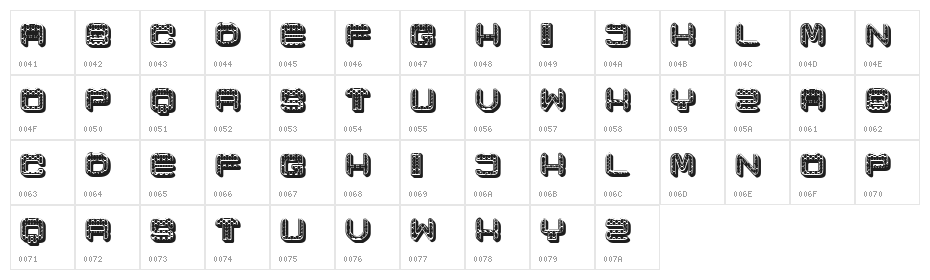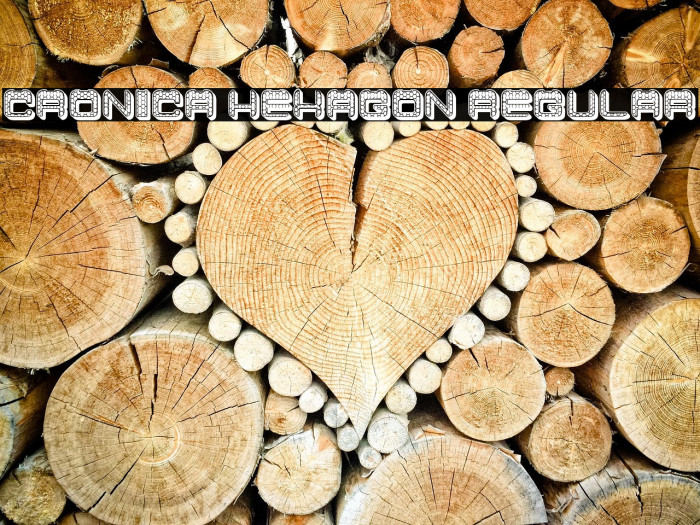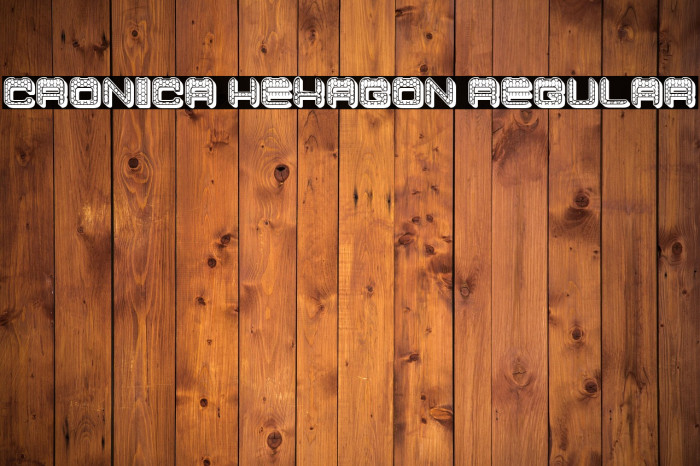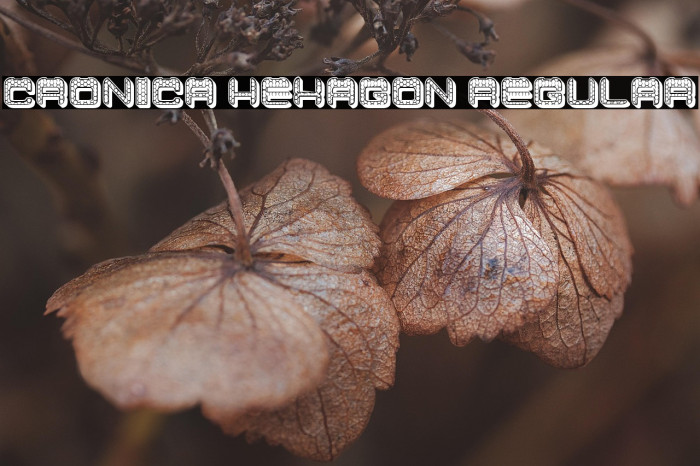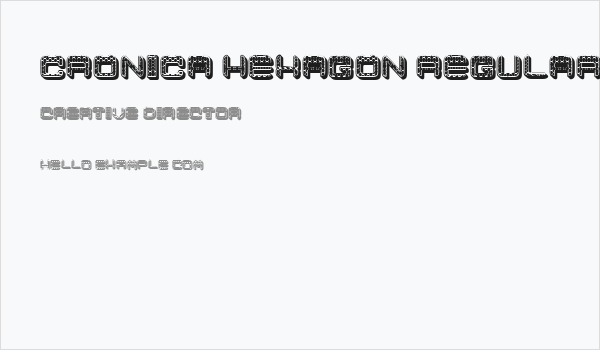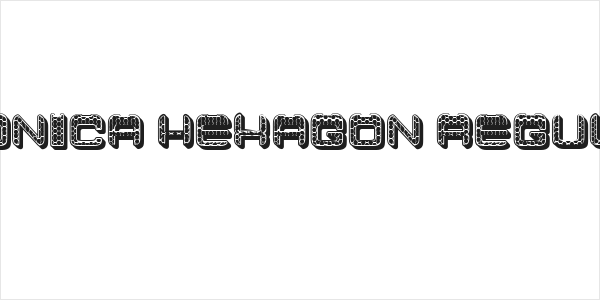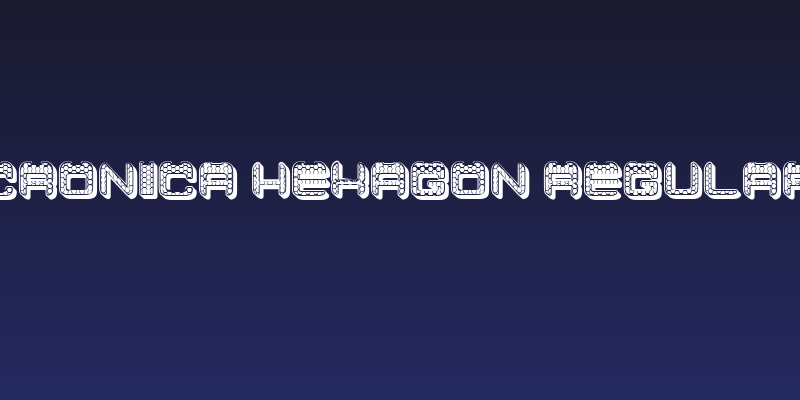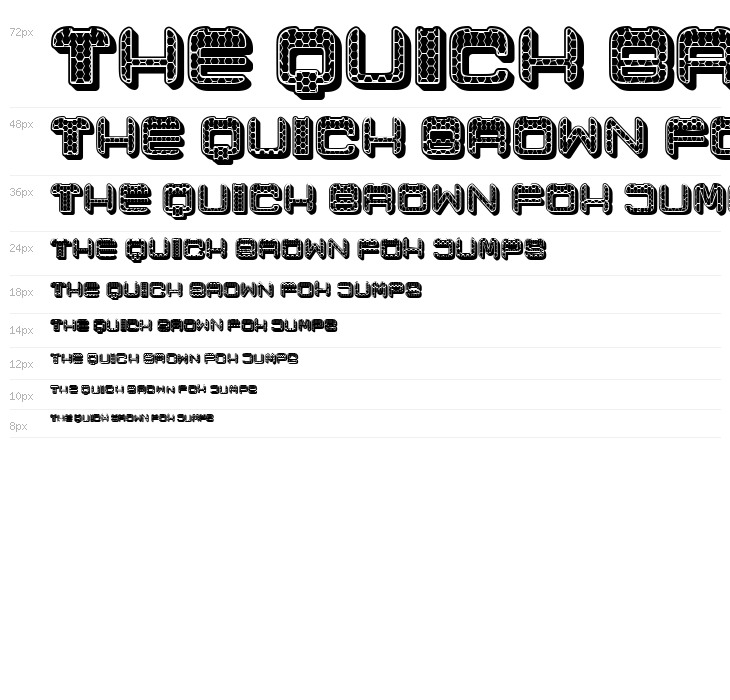
Cronica Hexagon Regular Font
Cronica Hexagon Regular Description
This font features a bold, geometric design with a unique hexagonal pattern filling each character. The letters are uppercase and have a modern, futuristic appearance. The edges are rounded, giving a softer look to the otherwise structured and angular shapes. The hexagonal pattern within each letter adds a layer of complexity and visual interest, making it stand out for creative and dynamic projects. The font is consistent in its style, maintaining a uniform appearance across all characters.
| Proposed Projects | Ideal for technology-themed designs, branding for innovative companies, posters, and digital artwork. |